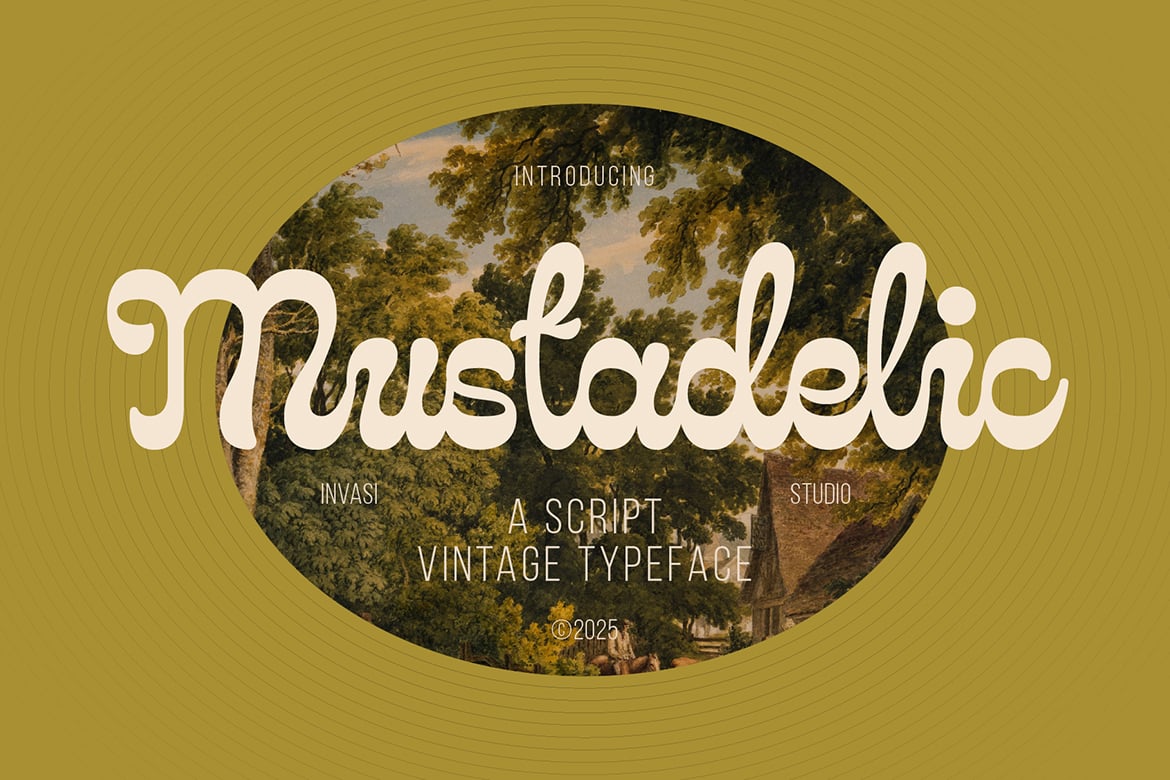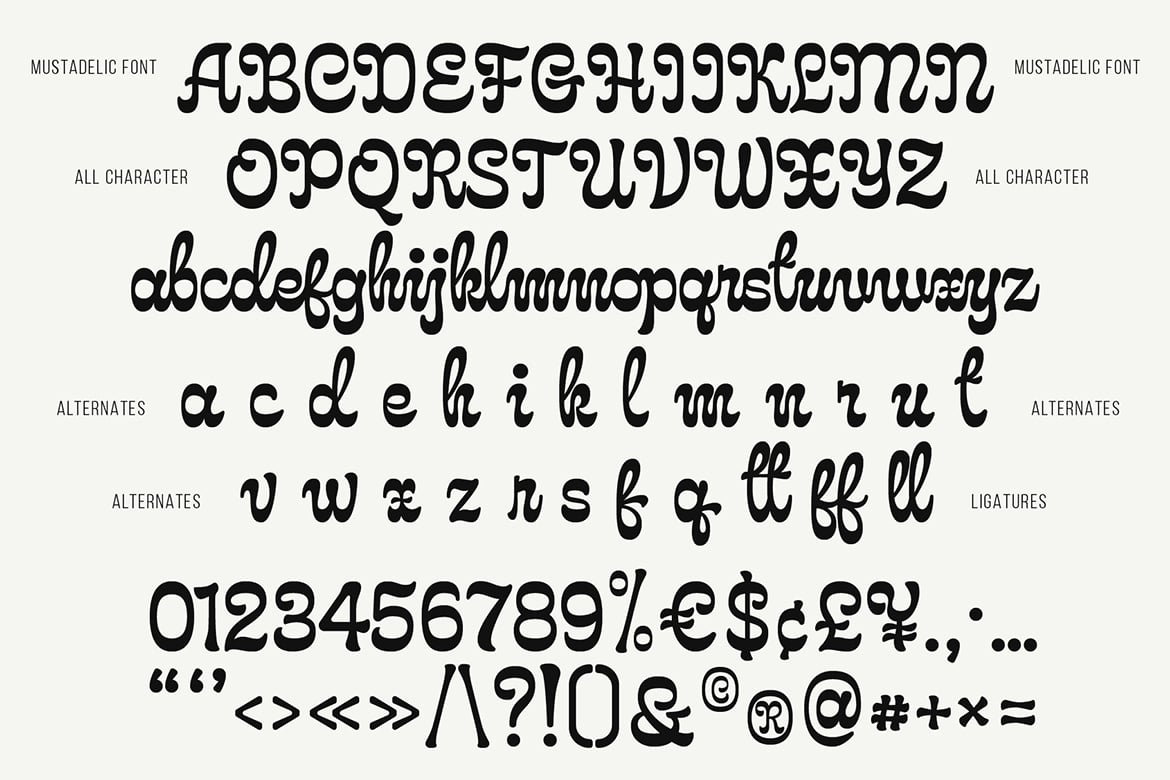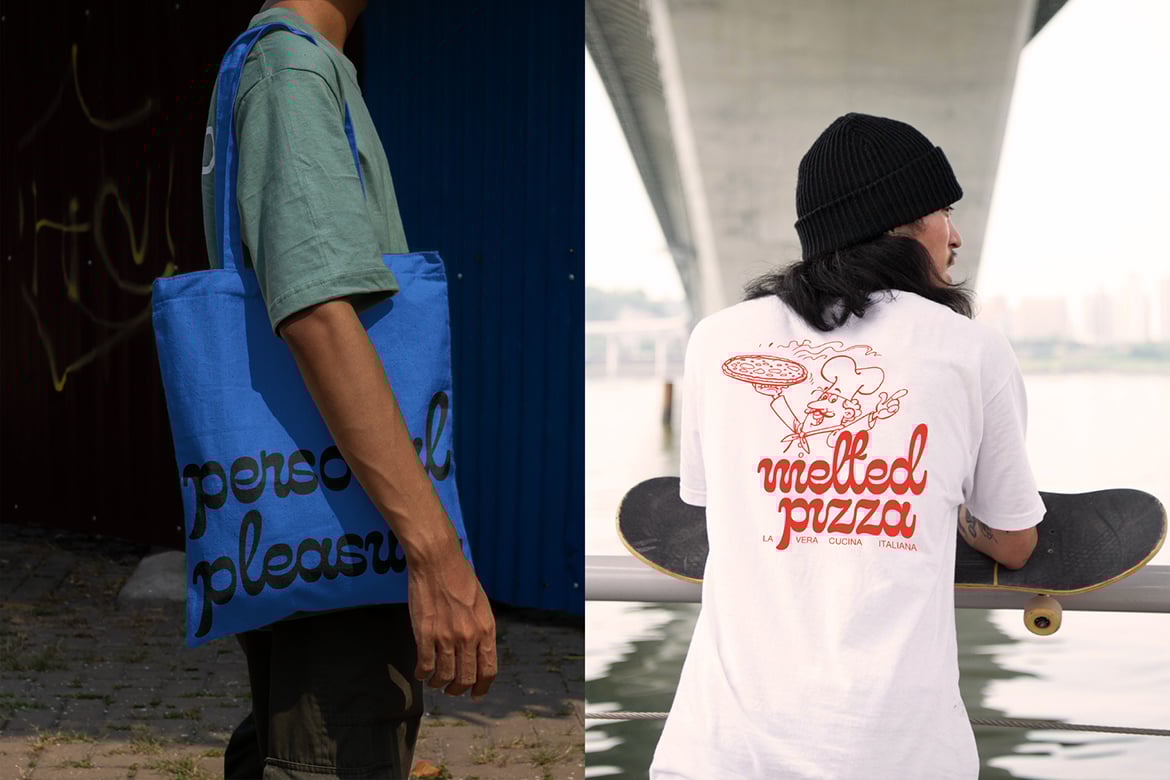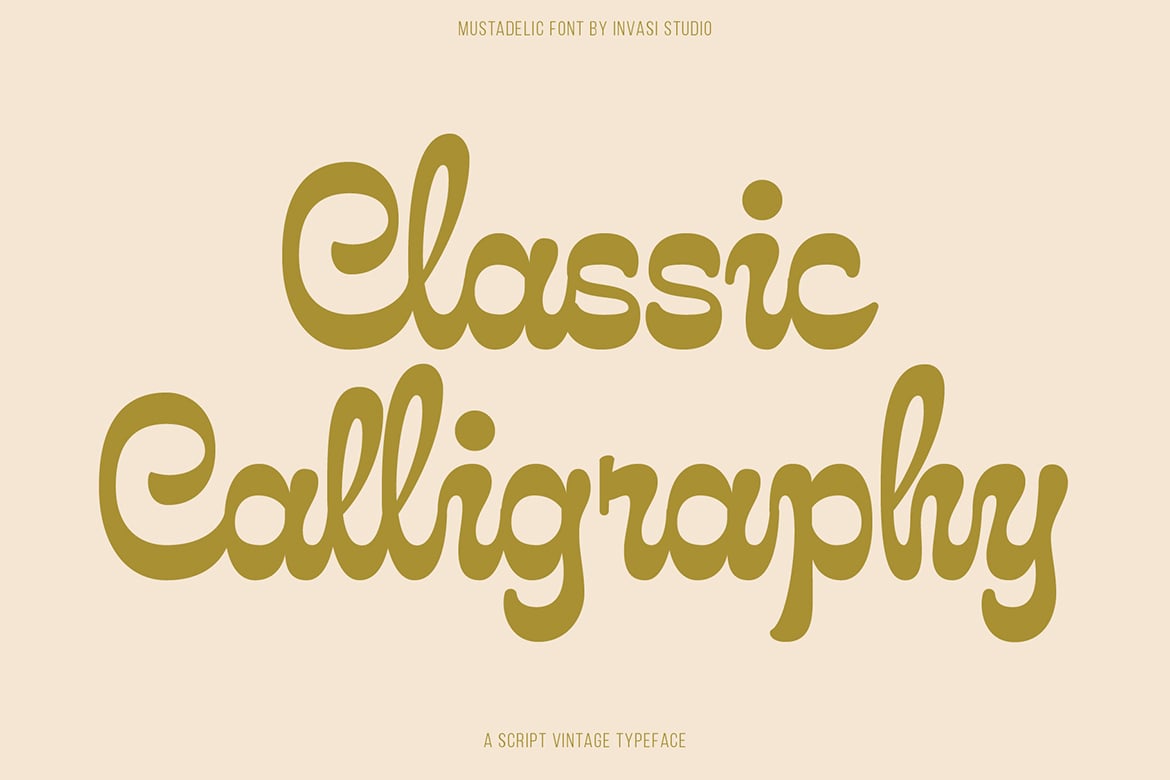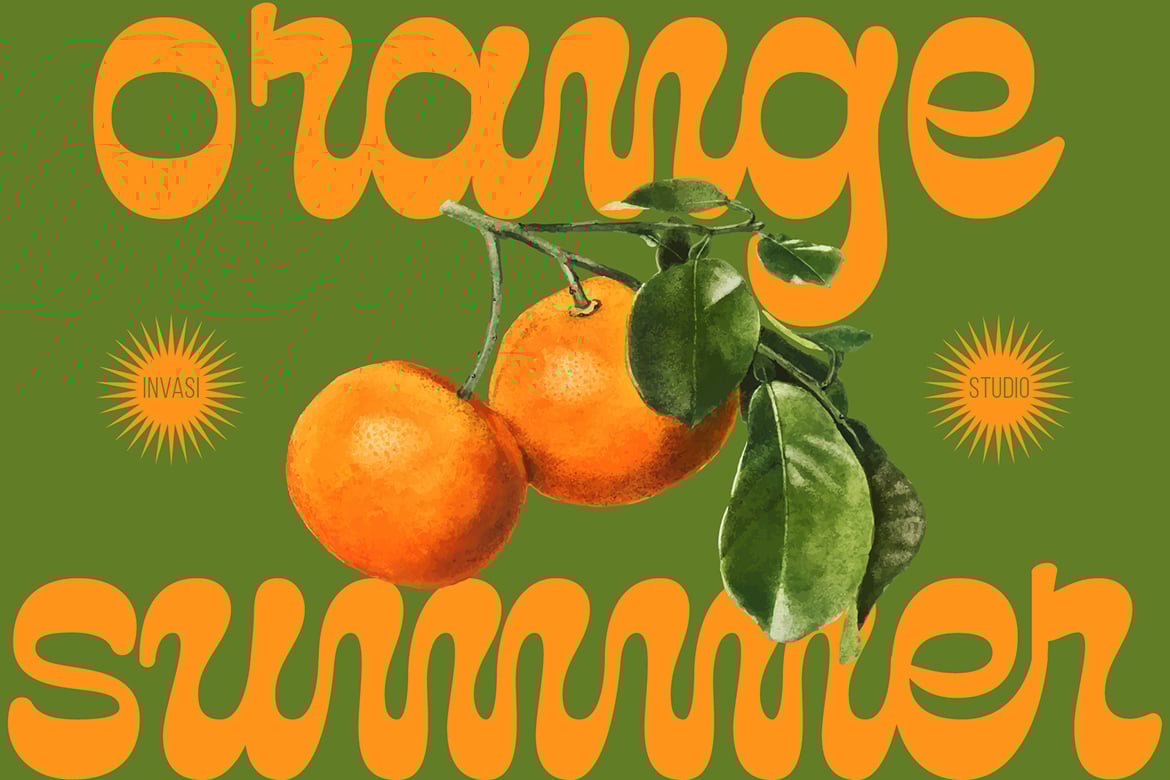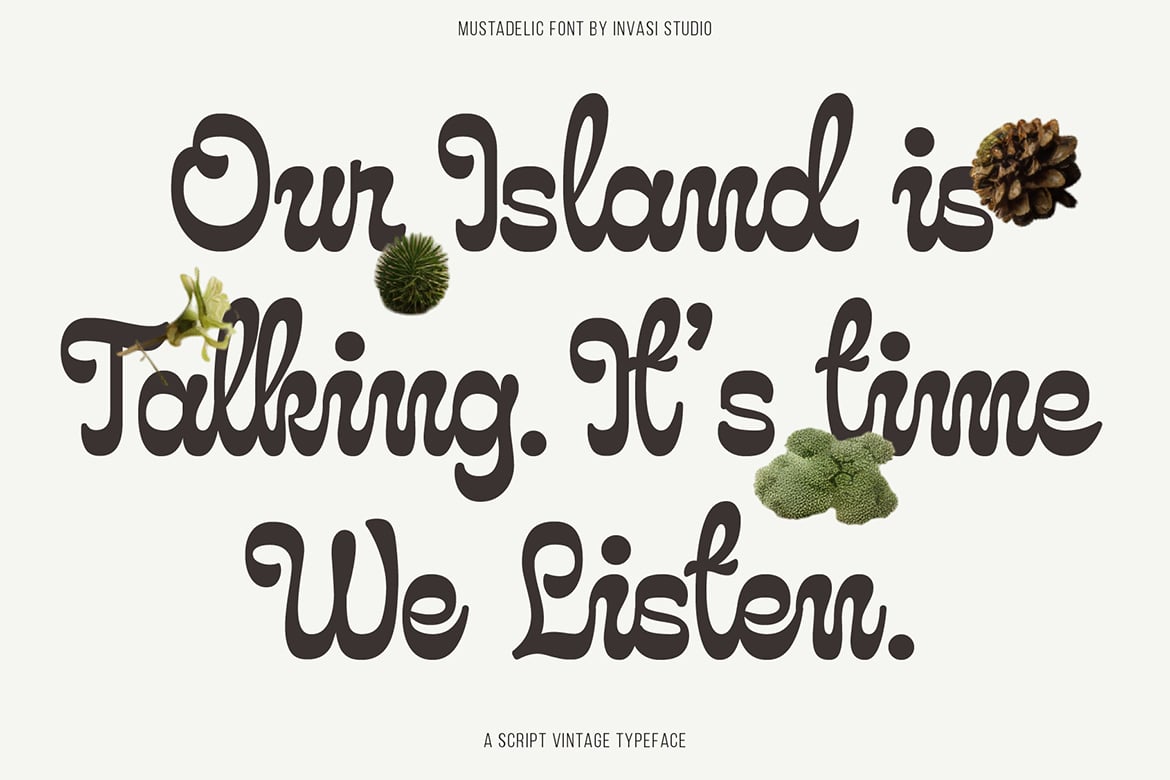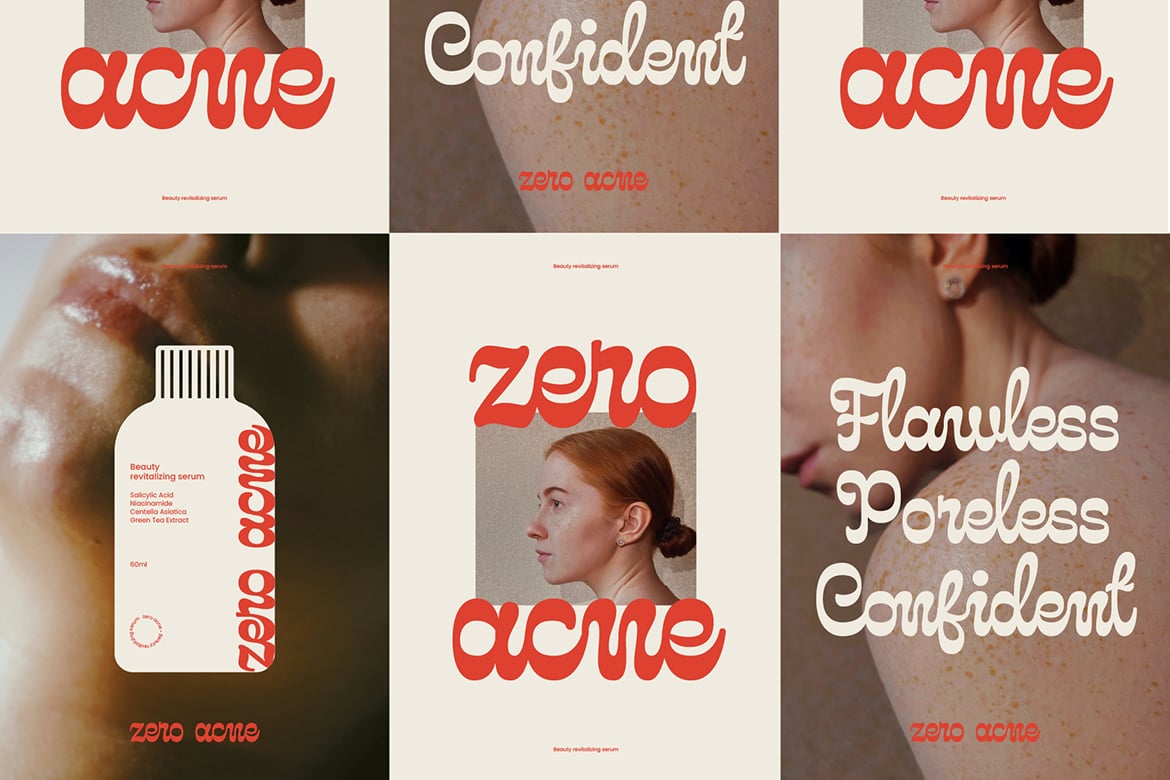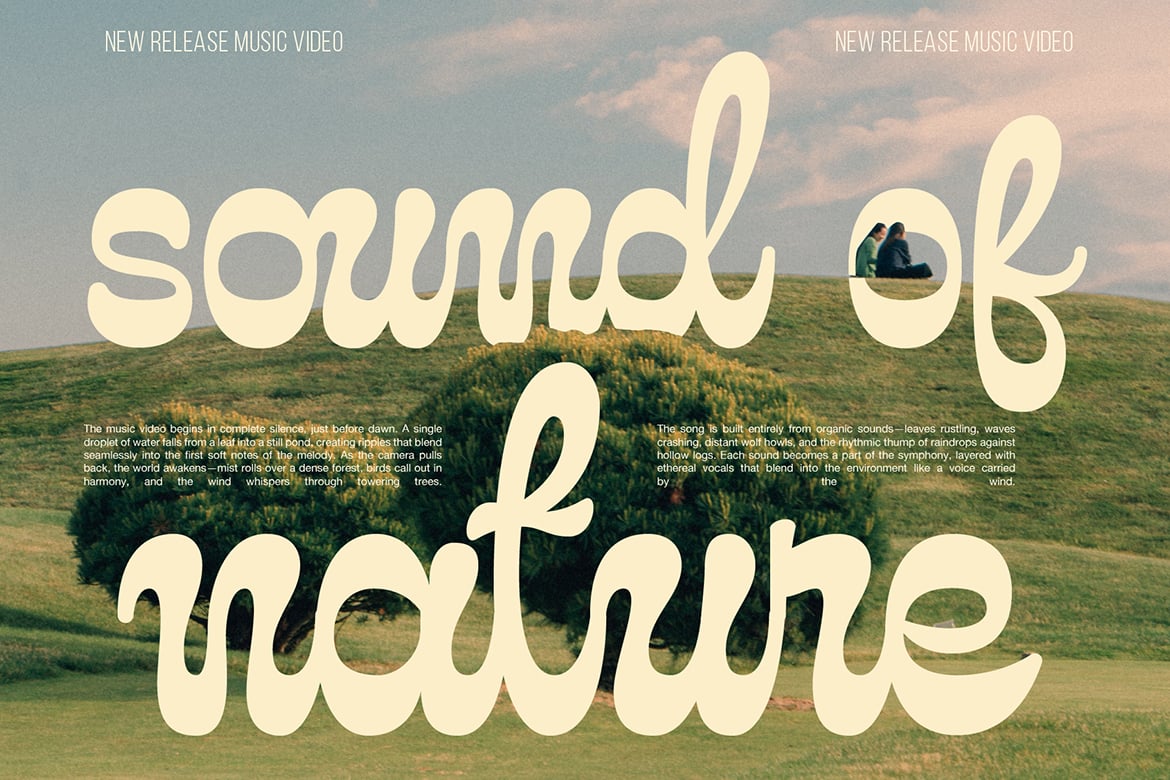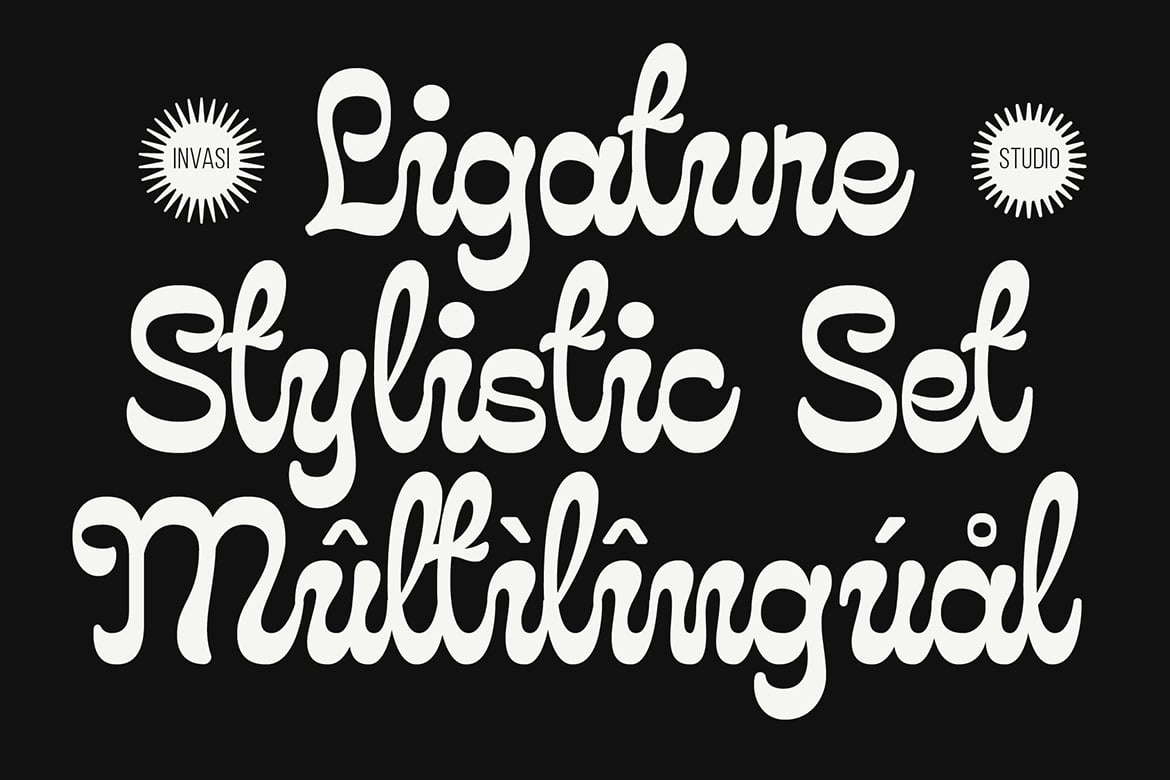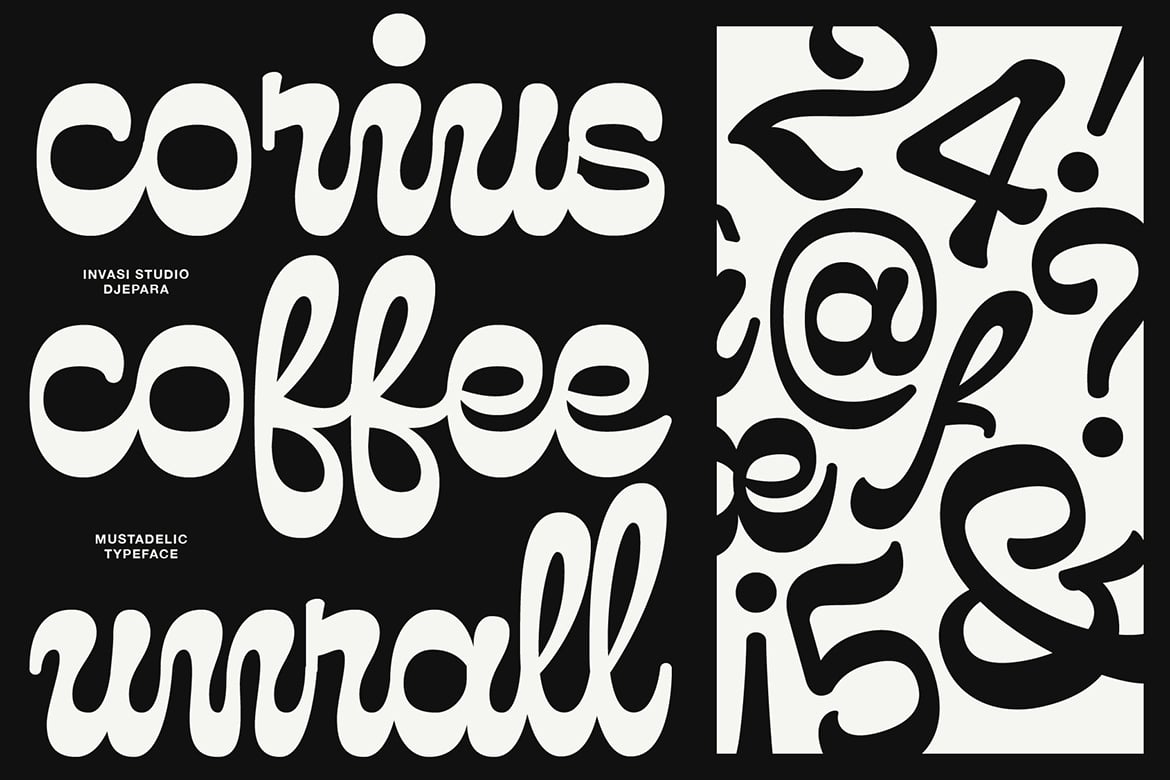
Mustadelic – Script Vintage Font
Let the rhythm of the past flow into your designs with Mustadelic, a groovy script font inspired by the psychedelic era. Its fluid curves and bold strokes channel the carefree spirit of the ’60s and ’70s, making every word feel dynamic and alive. Designed with smooth letter connections and stylish alternates, this typeface offers a unique retro aesthetic while staying versatile for modern applications. Whether you’re crafting eye-catching branding, nostalgic packaging, or expressive typography for apparel, Mustadelic delivers a charismatic presence. With extensive multilingual support and well-balanced ligatures, this font is built to bring energy, personality, and a touch of nostalgia to any creative project.
- Numerals & Punctuation
- Alternates & Ligature
- Multilanguage Supports 87+ Latin-based languages